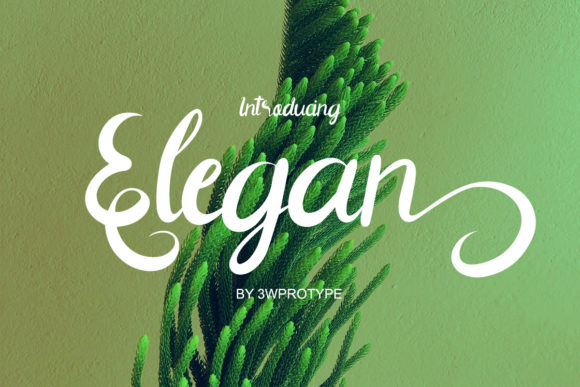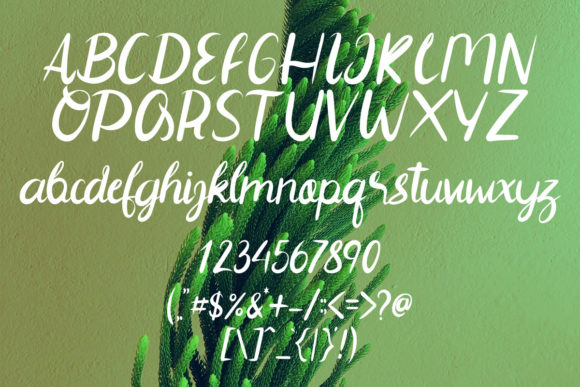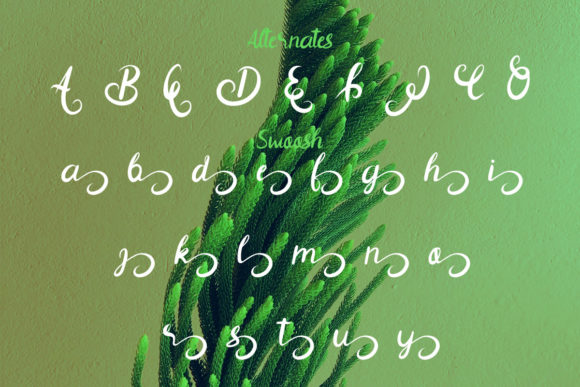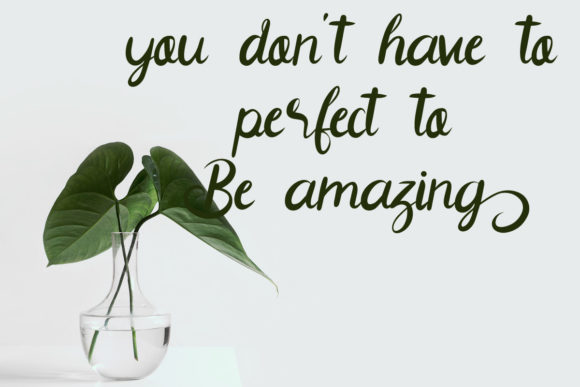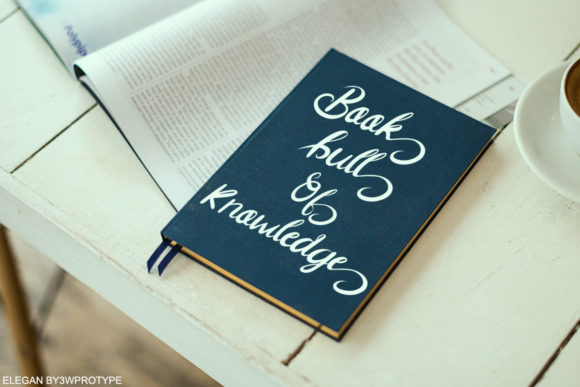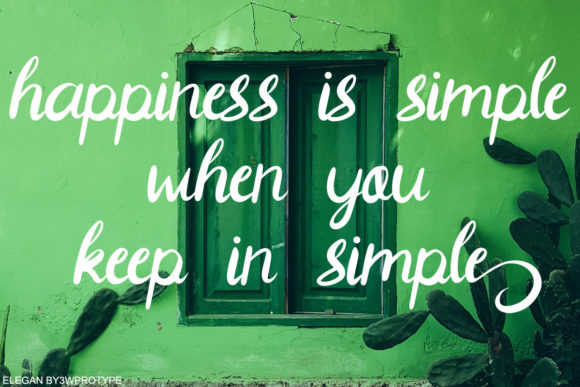
Elegan Font
About Elegan Font
Elegan is a well adjusted and fine script font, which we created especially for branding, invitation cards, business, quotes and any other needs. This font is PUA encoded which means you can access all glyphs and swashes with ease!